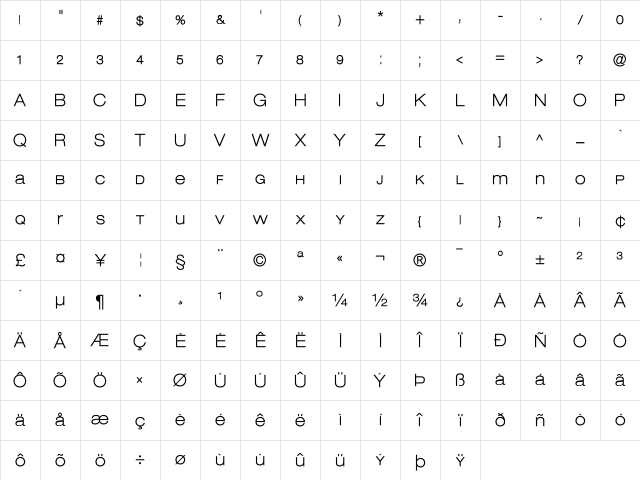
Lowvetica Regular Free Font
Copyright: Inspired on the popular font HELVETICA by Max Miedinger with Eduard Hoffman, eliminating all highs and lows.
Design Context for Lowvetica
Lowvetica is a composed and adaptable typeface that performs quietly and consistently across a wide range of design contexts.